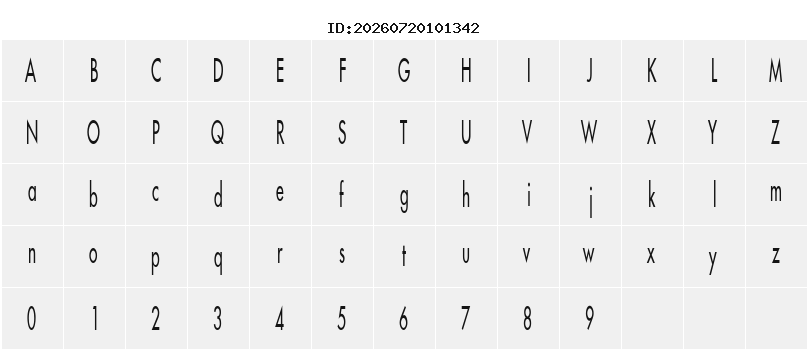
• Font Name: Fusi Thin
• Full Font Name: Fusi Thin Normal
About Fusi Thin.ttf
Fusi Thin.ttf is a modern, elegant sans-serif font designed for ultimate readability and visual harmony. Perfect for branding, headlines, web design, and print materials.